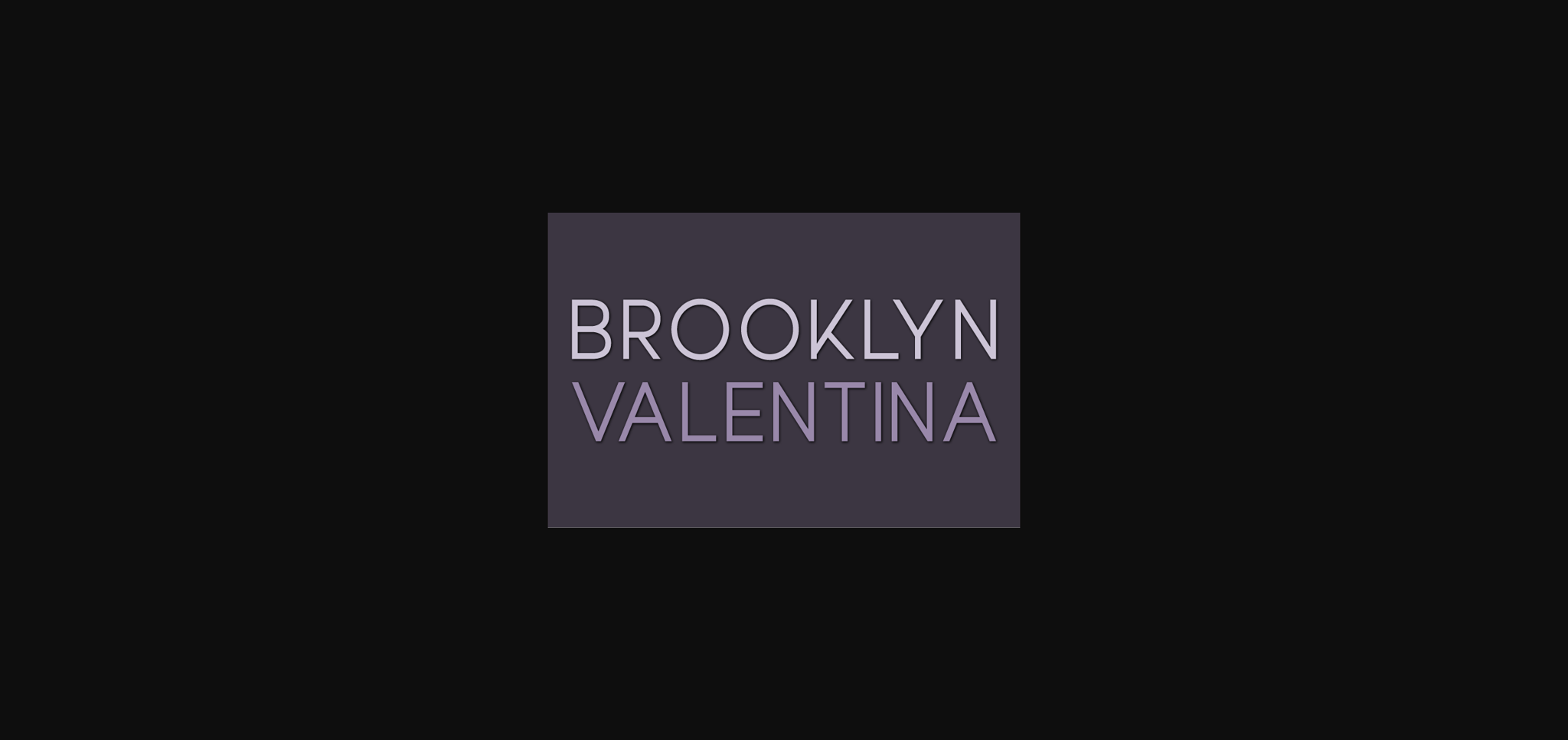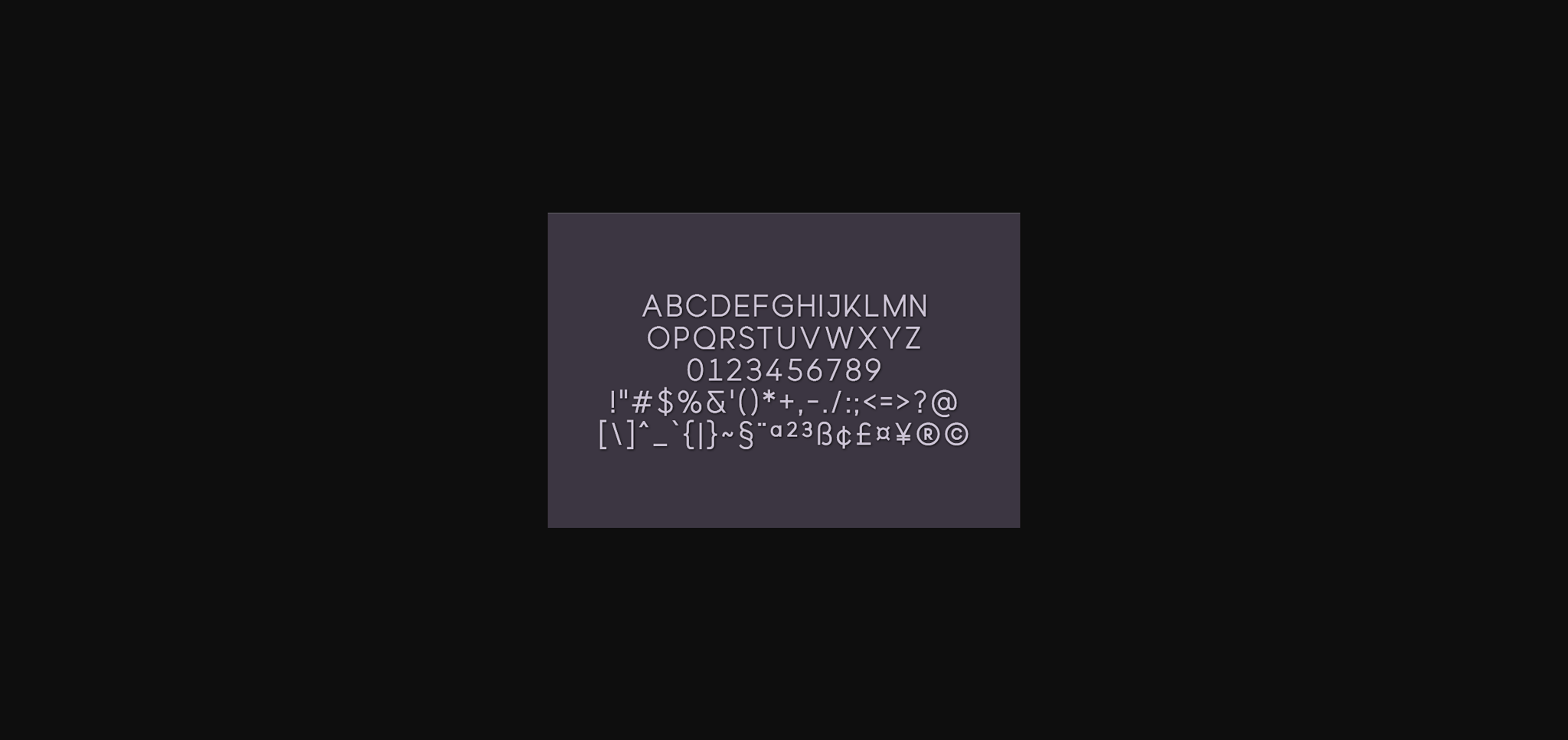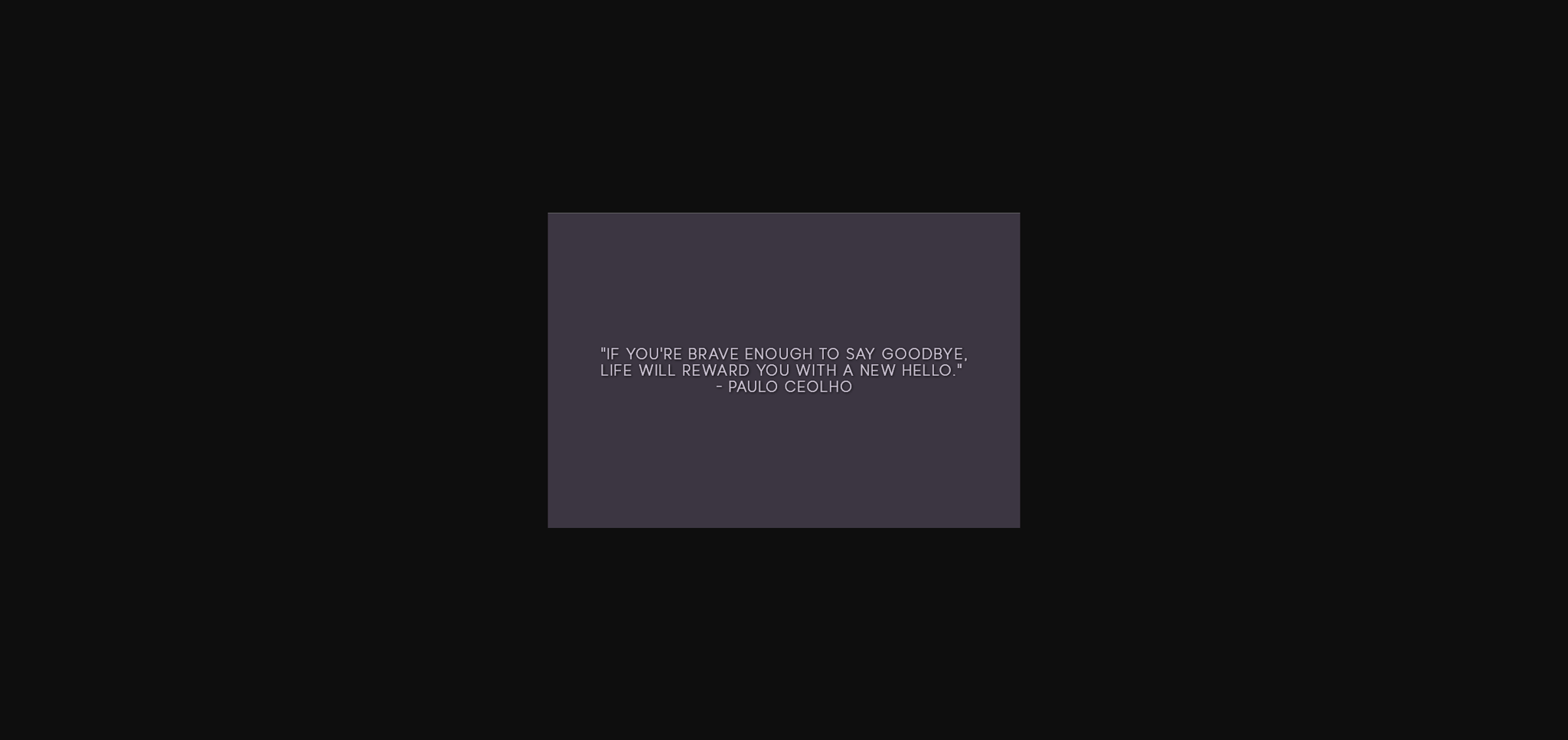
About Brooklyn Valentina Font
Brooklyn Valentina is a stunning sans serif to complement every project you’re working on.
Use it to create beautiful headings, gorgeous invitations, stunning logos, and so much more!! Perfect for displays, headers, invitations, save-the-dates, weddings, and so much more!